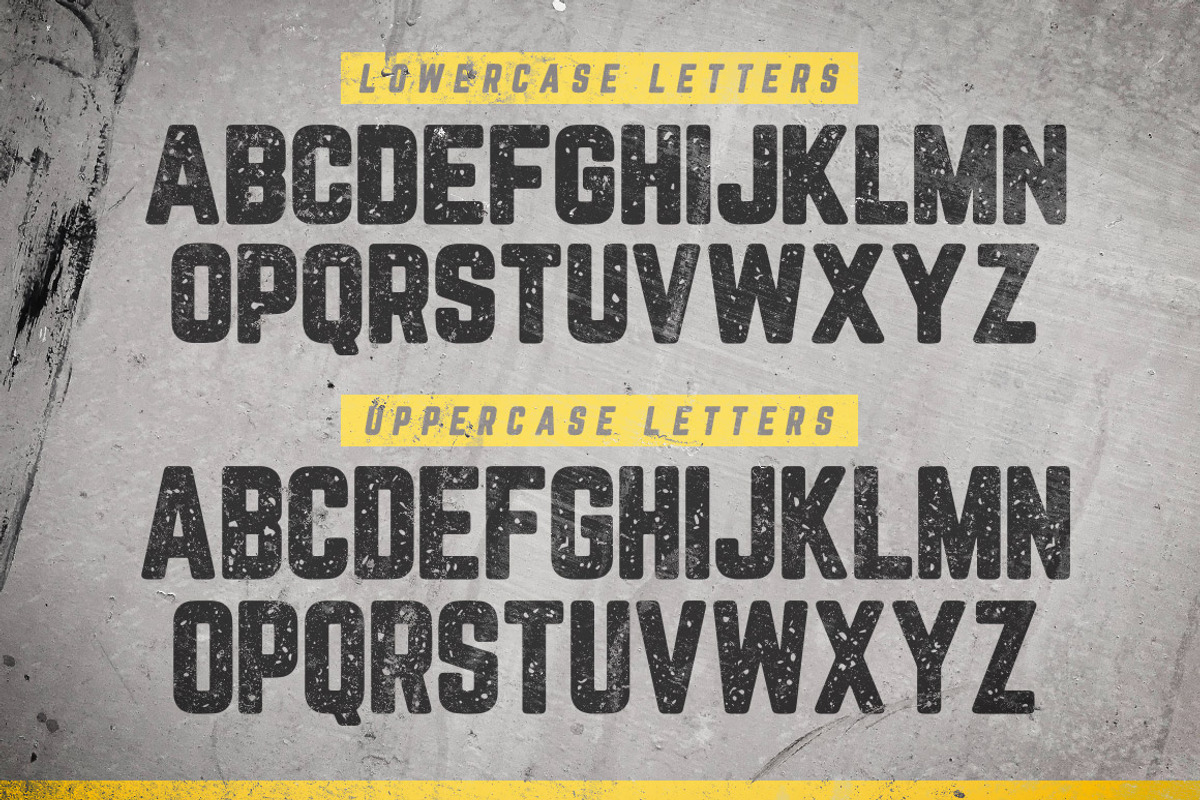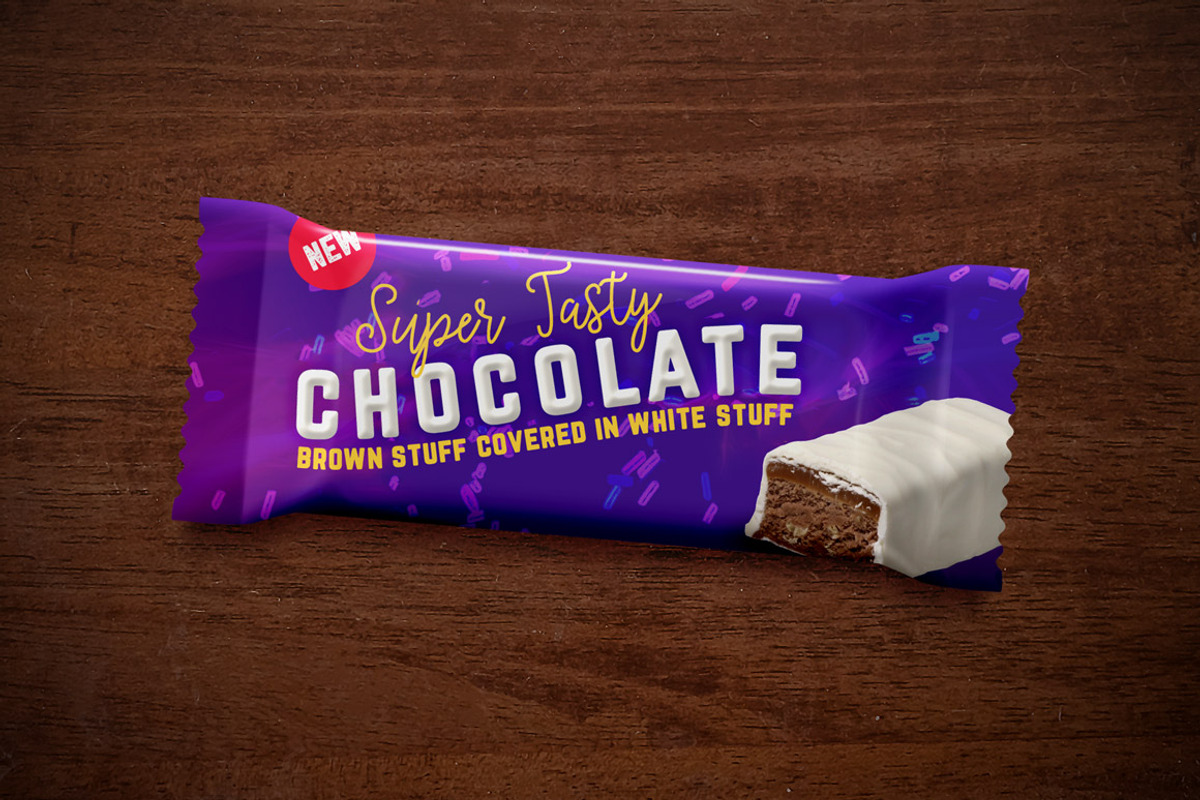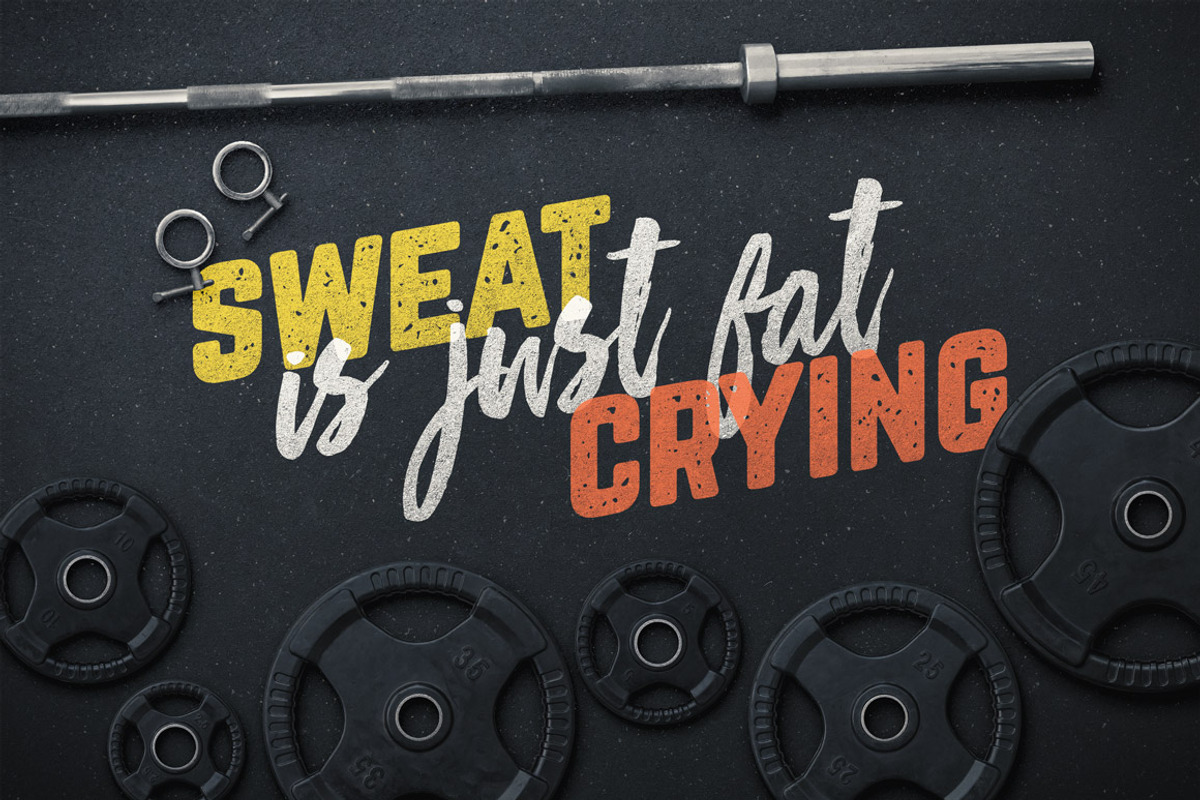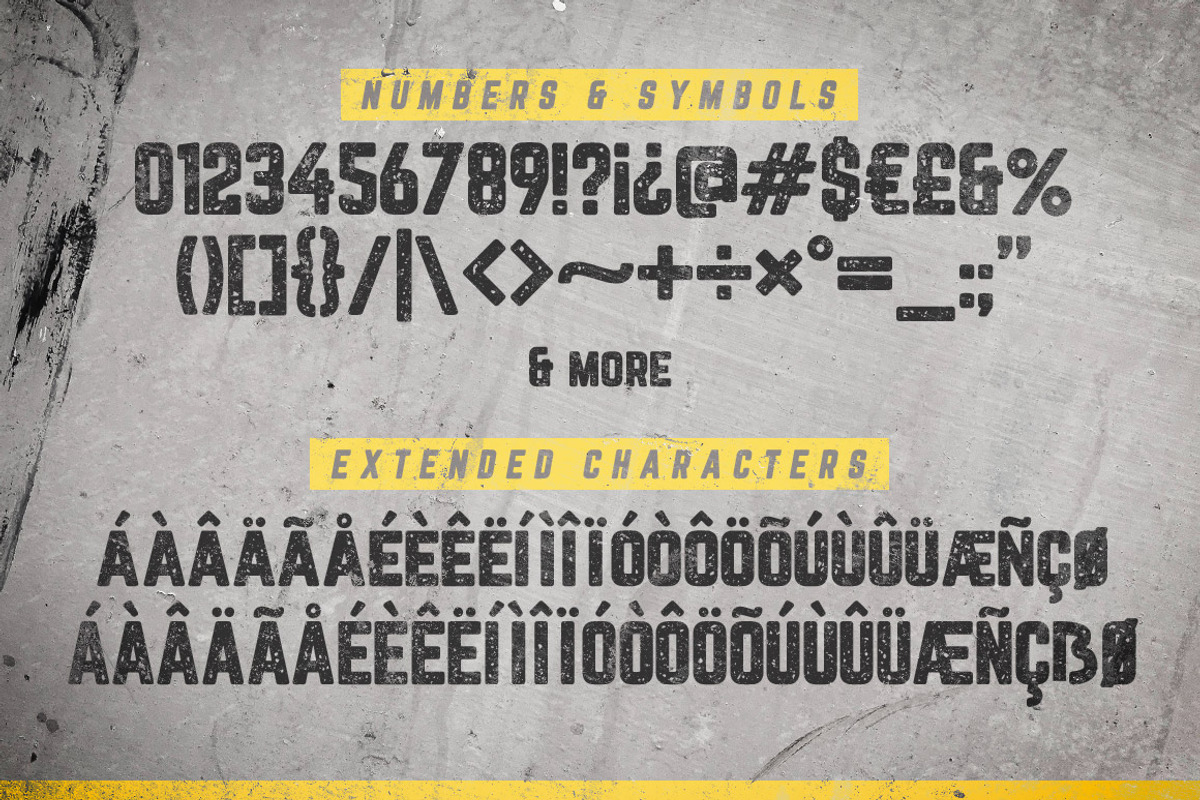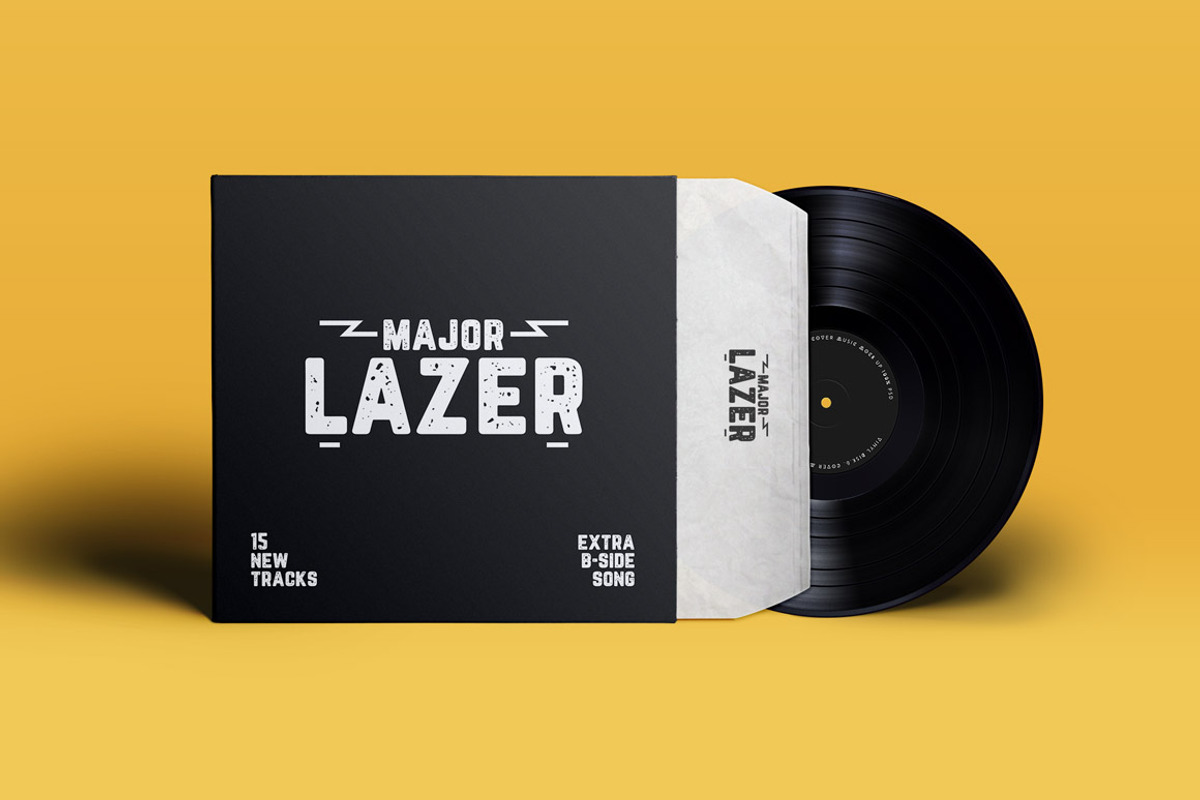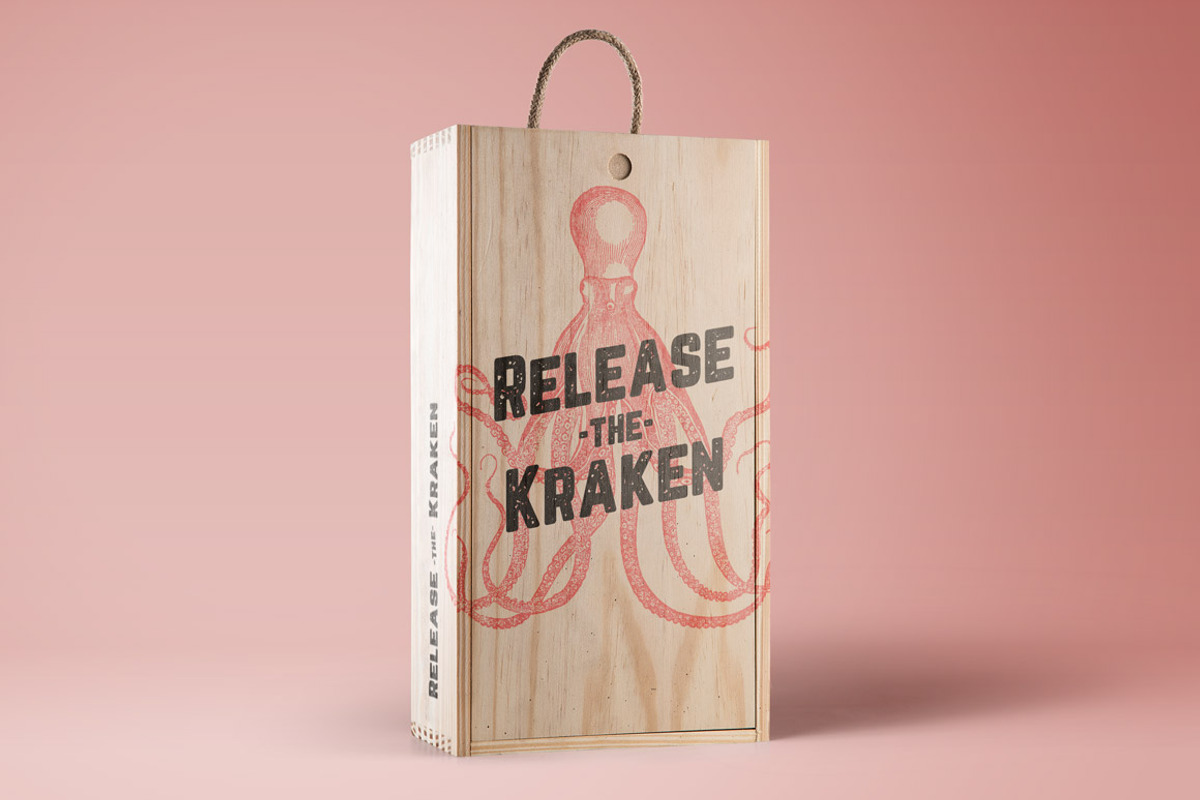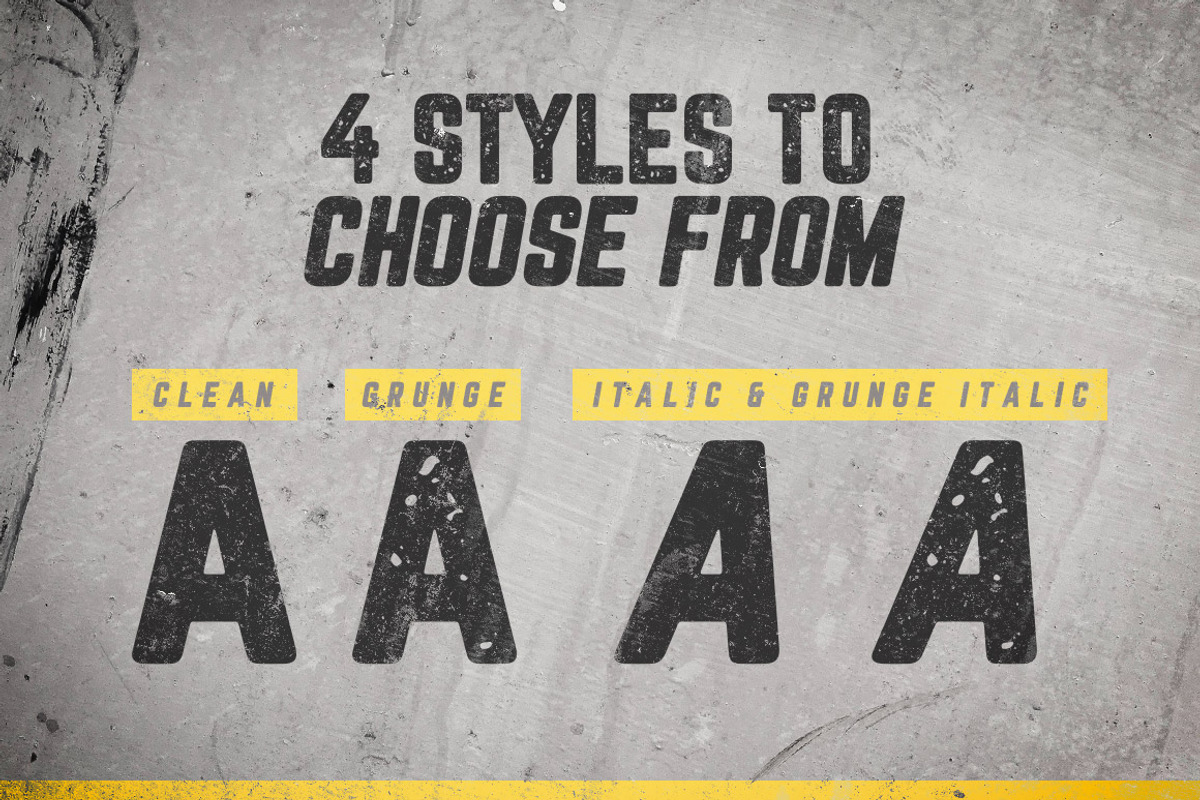
Blocklyn Font Family + Mockups
Blocklyn Font Family + Mockups by Design Panoply is a font selected for branding, posters, packaging, typography.
- Included are 4 fonts: Condensed, Condensed Italic, Grunge, and Grunge Italic, plus 2 hardcore, 3,000 x 2,000 pixel PSD mockups templates.
- This font includes standard and extended Latin characters as well as numbers and symbols.
Why Blocklyn Font Family + Mockups is worth a look
Blocklyn Font Family + Mockups by Design Panoply fits naturally into Branding, posters, packaging, typography.